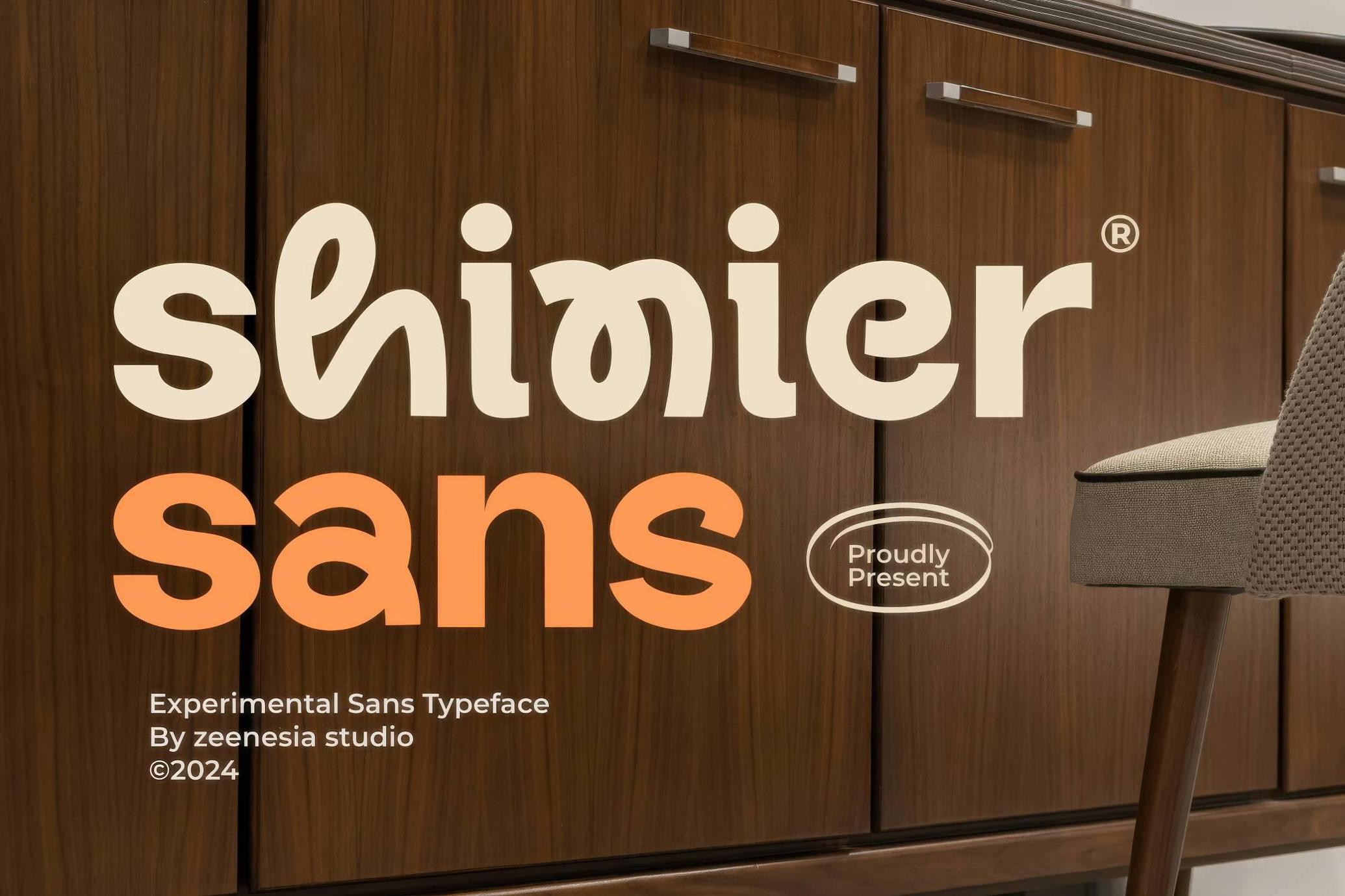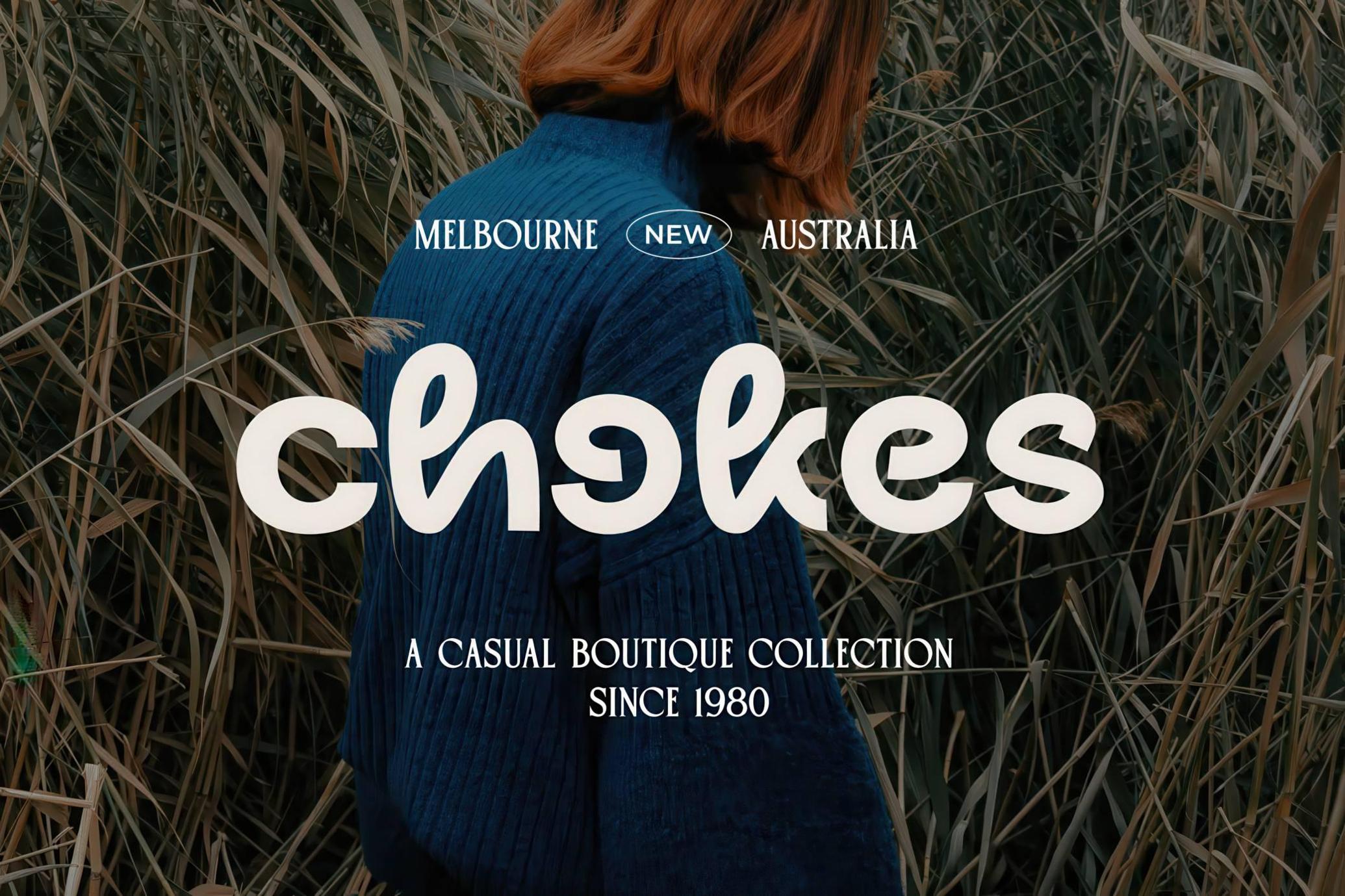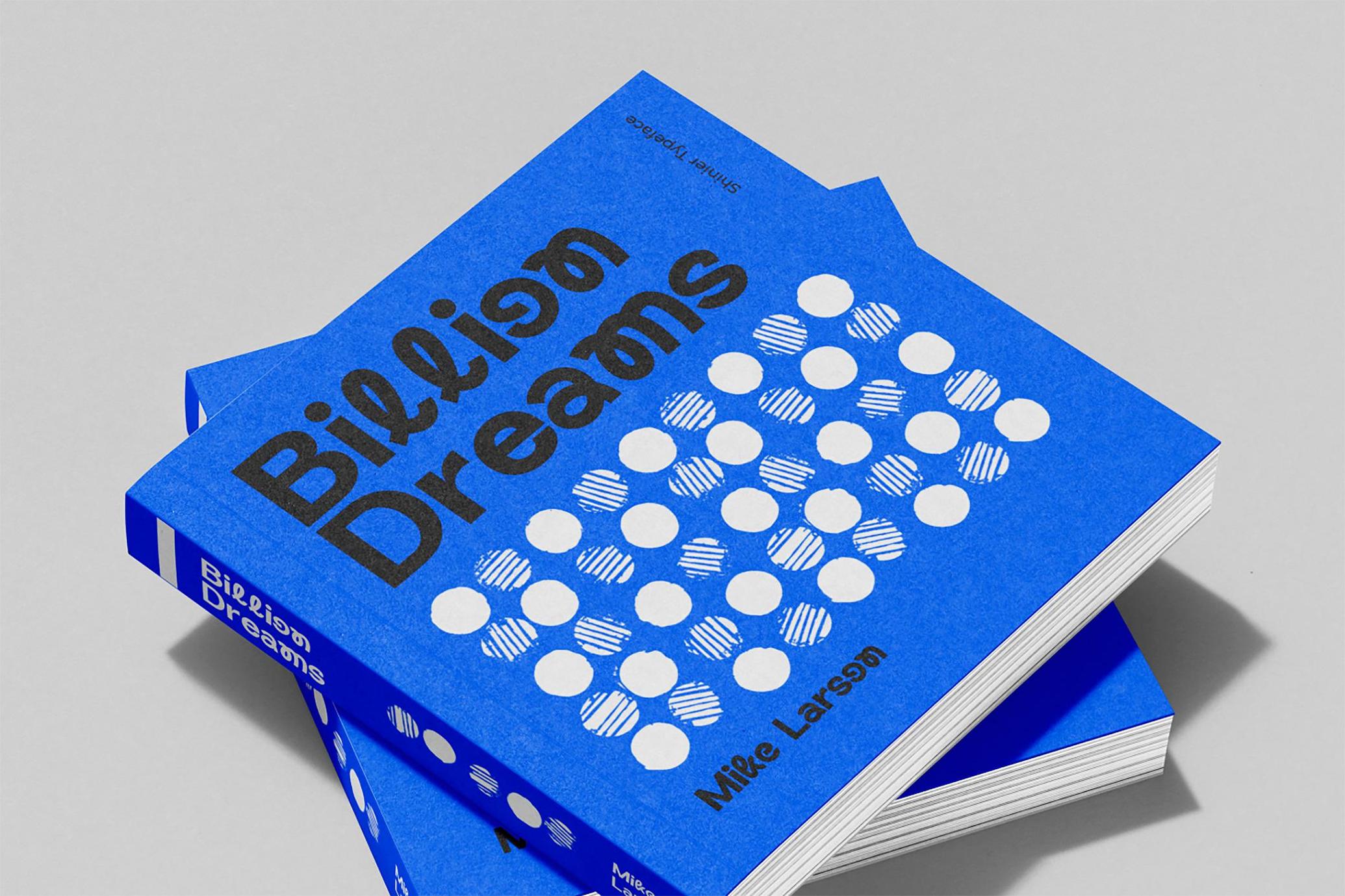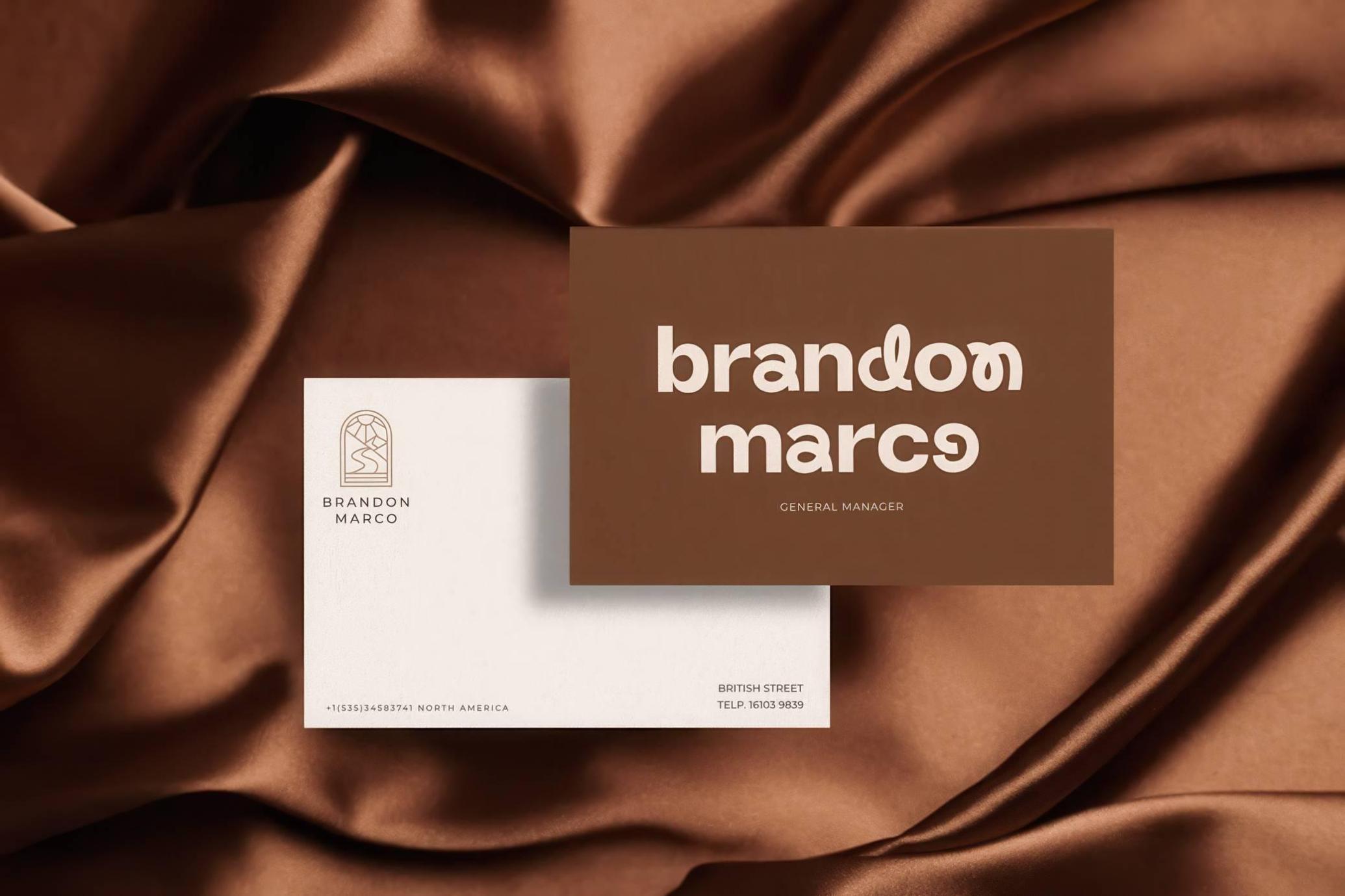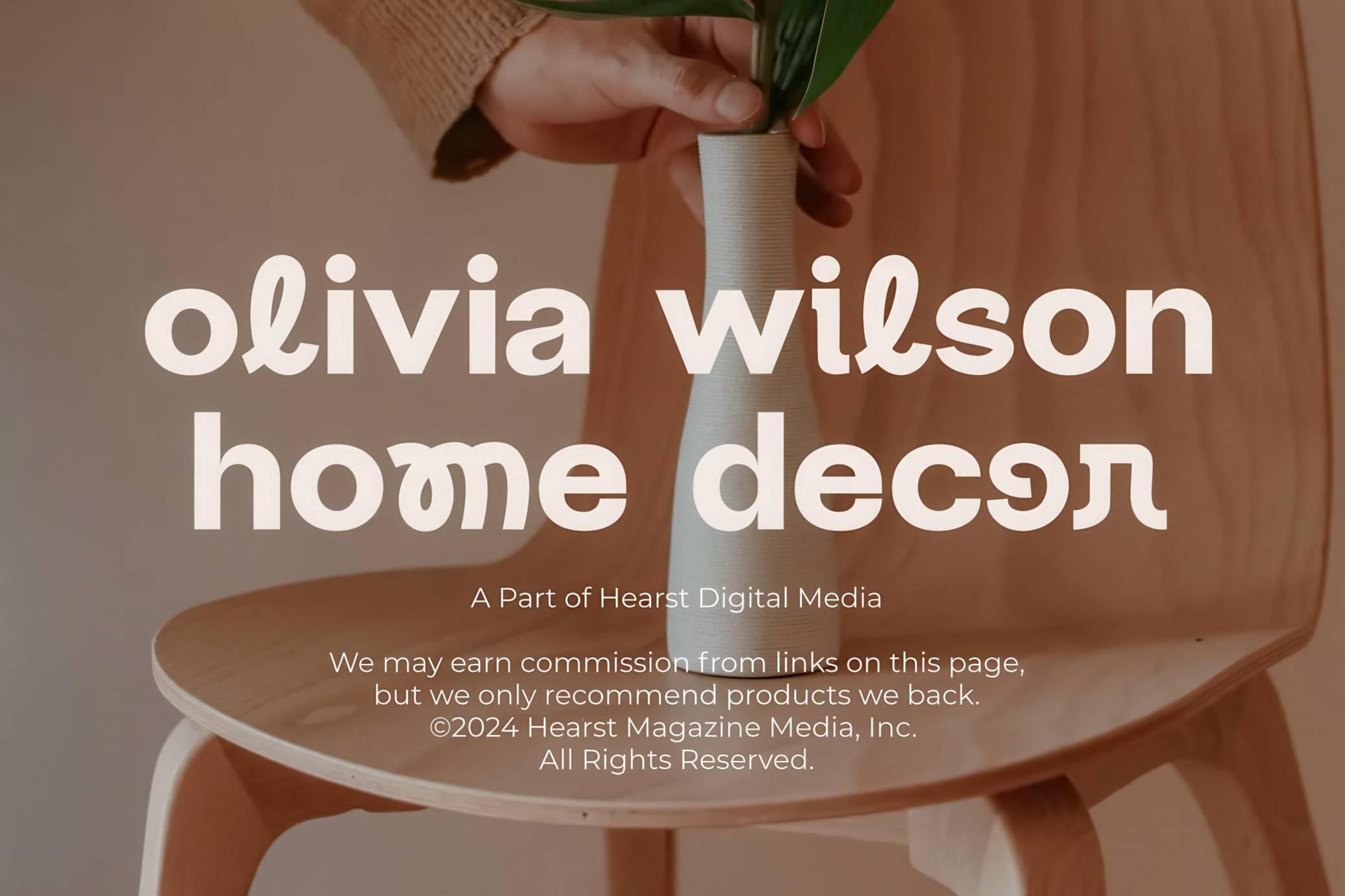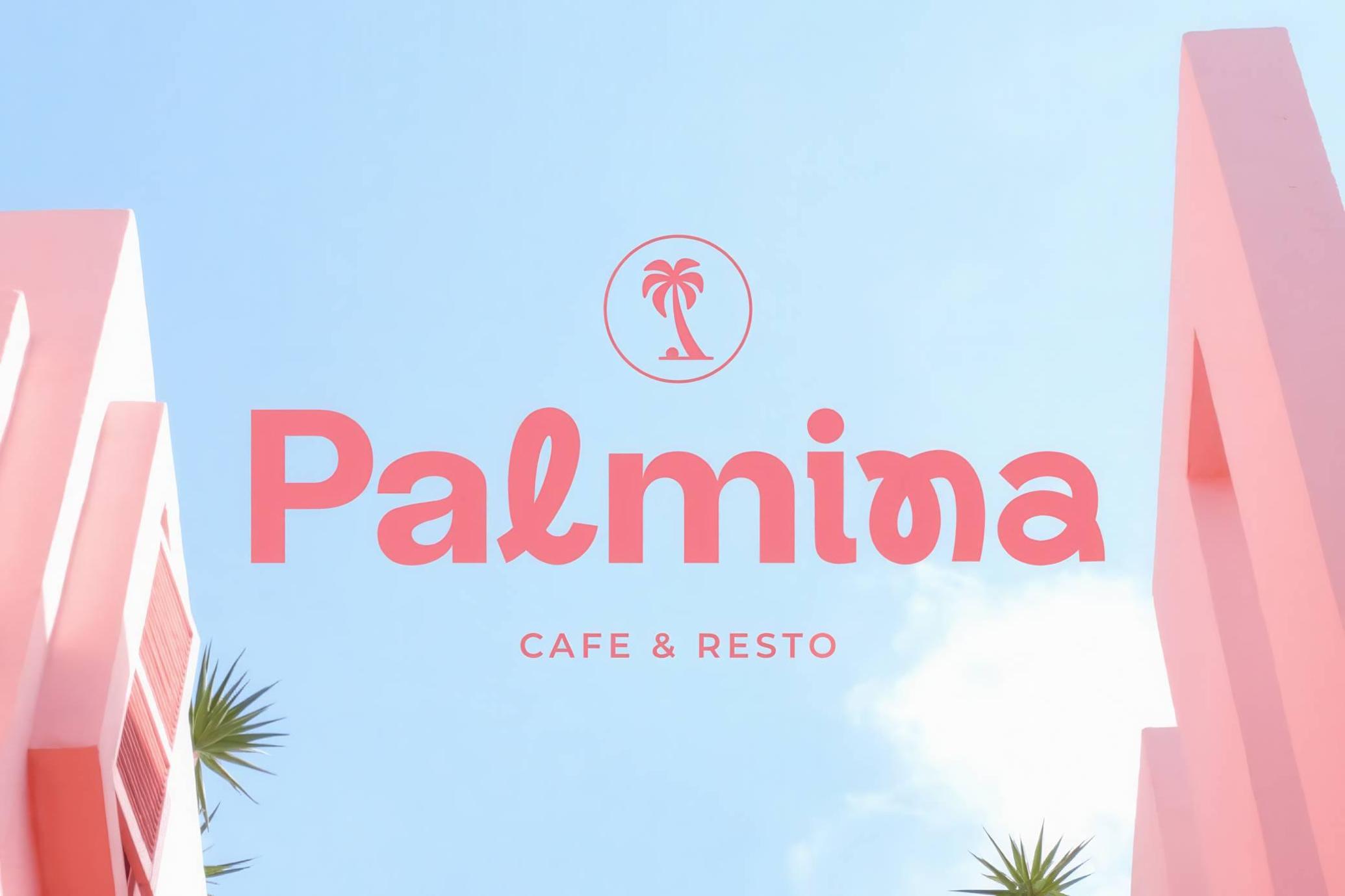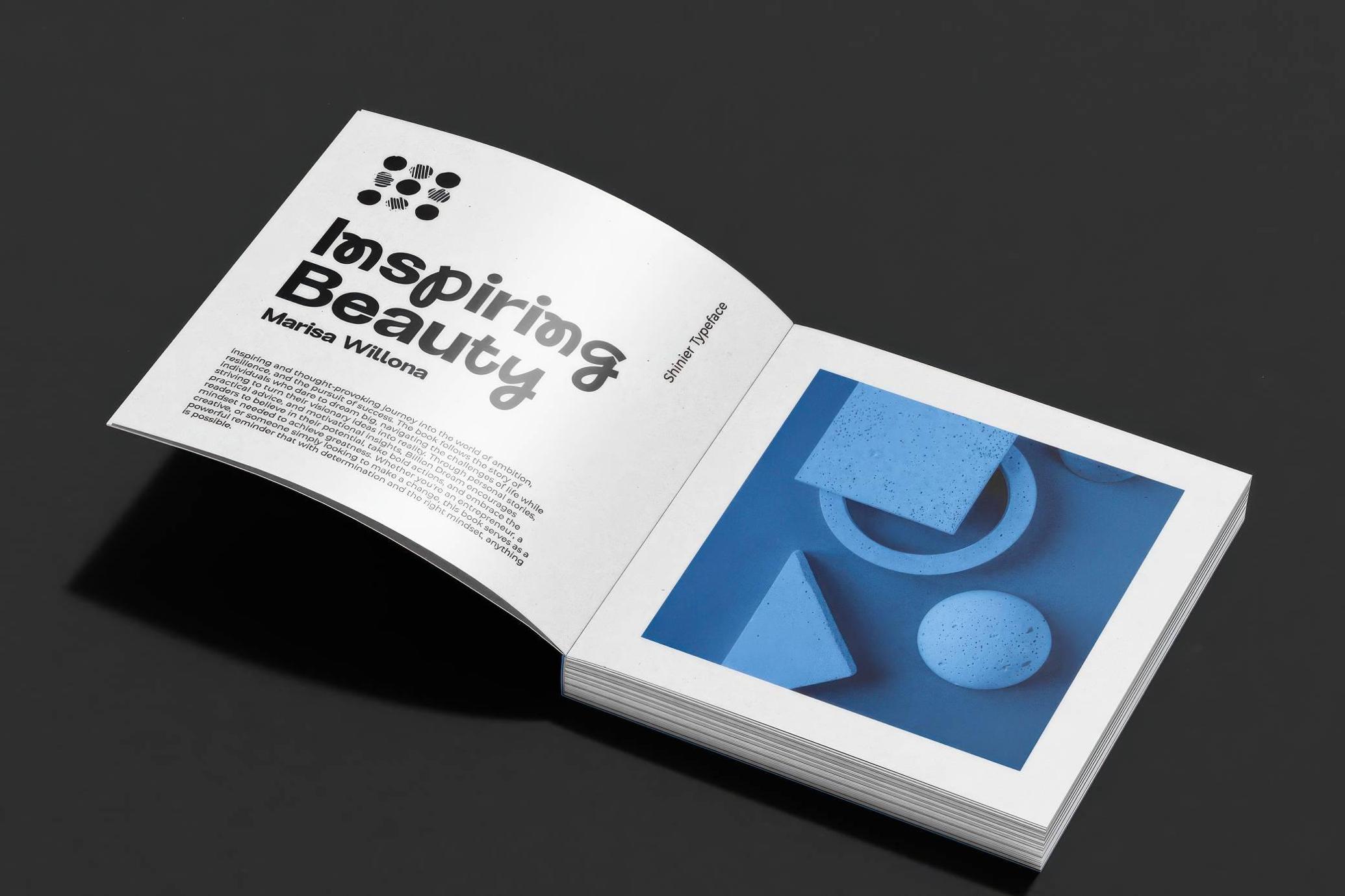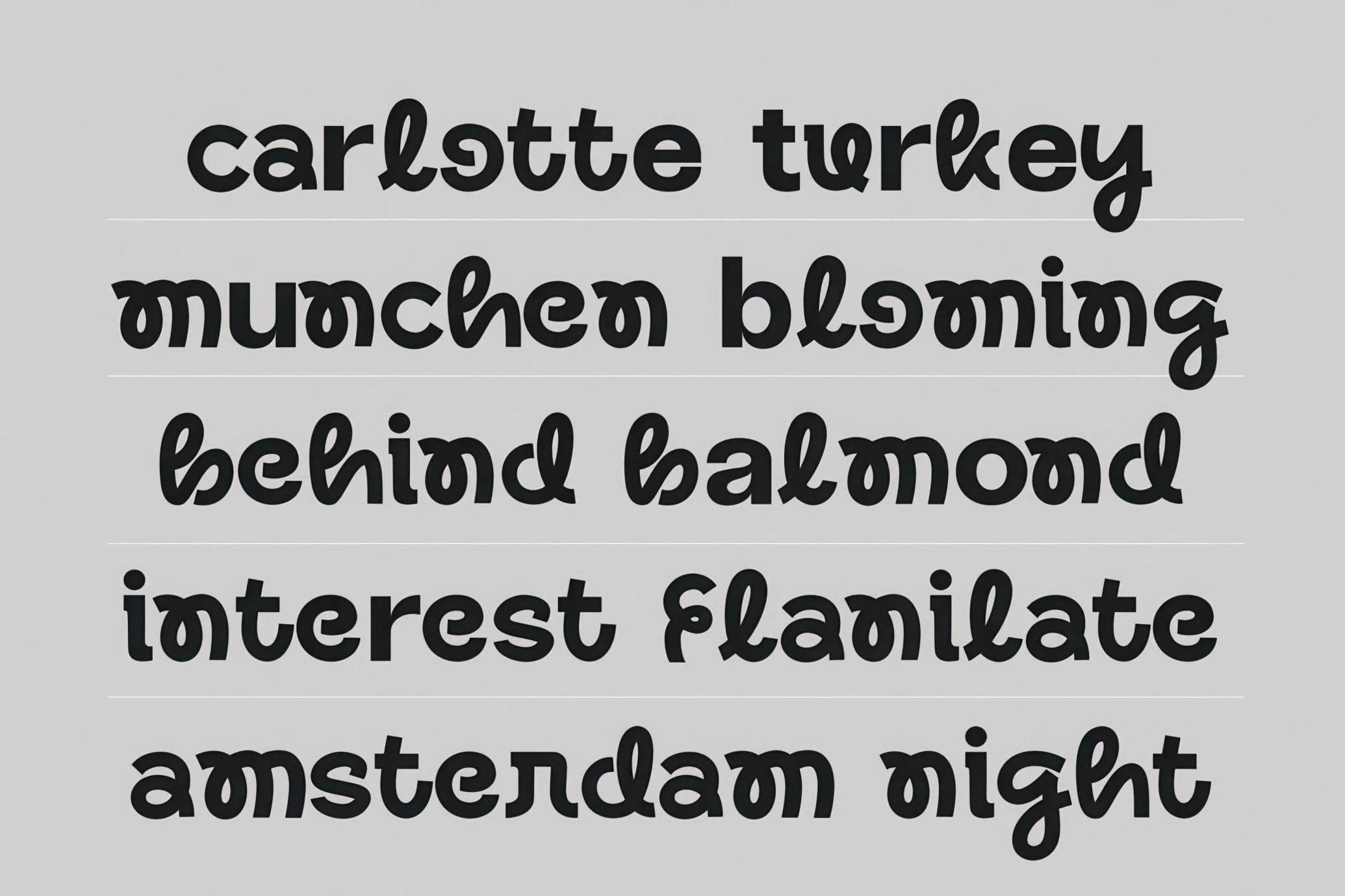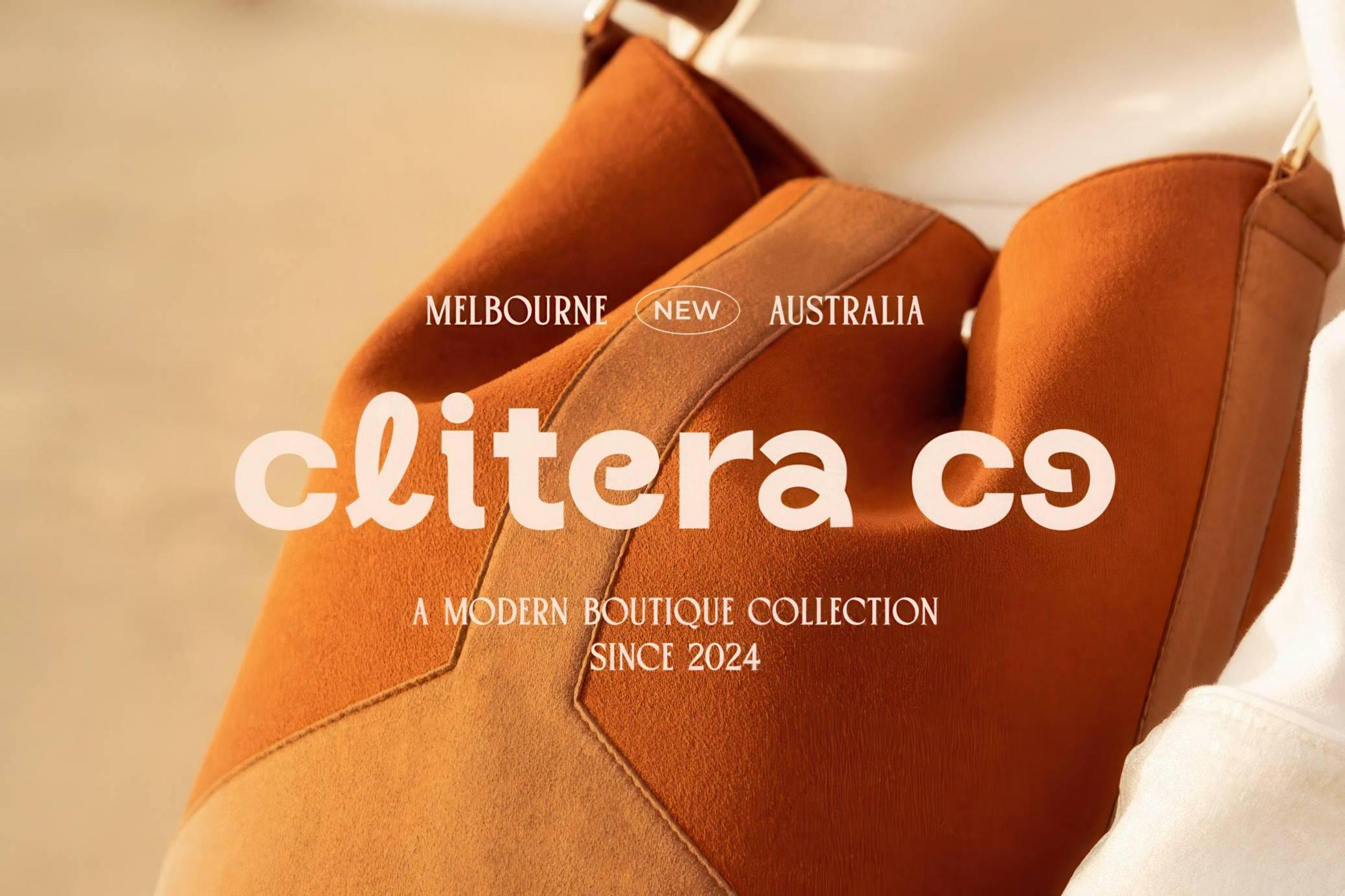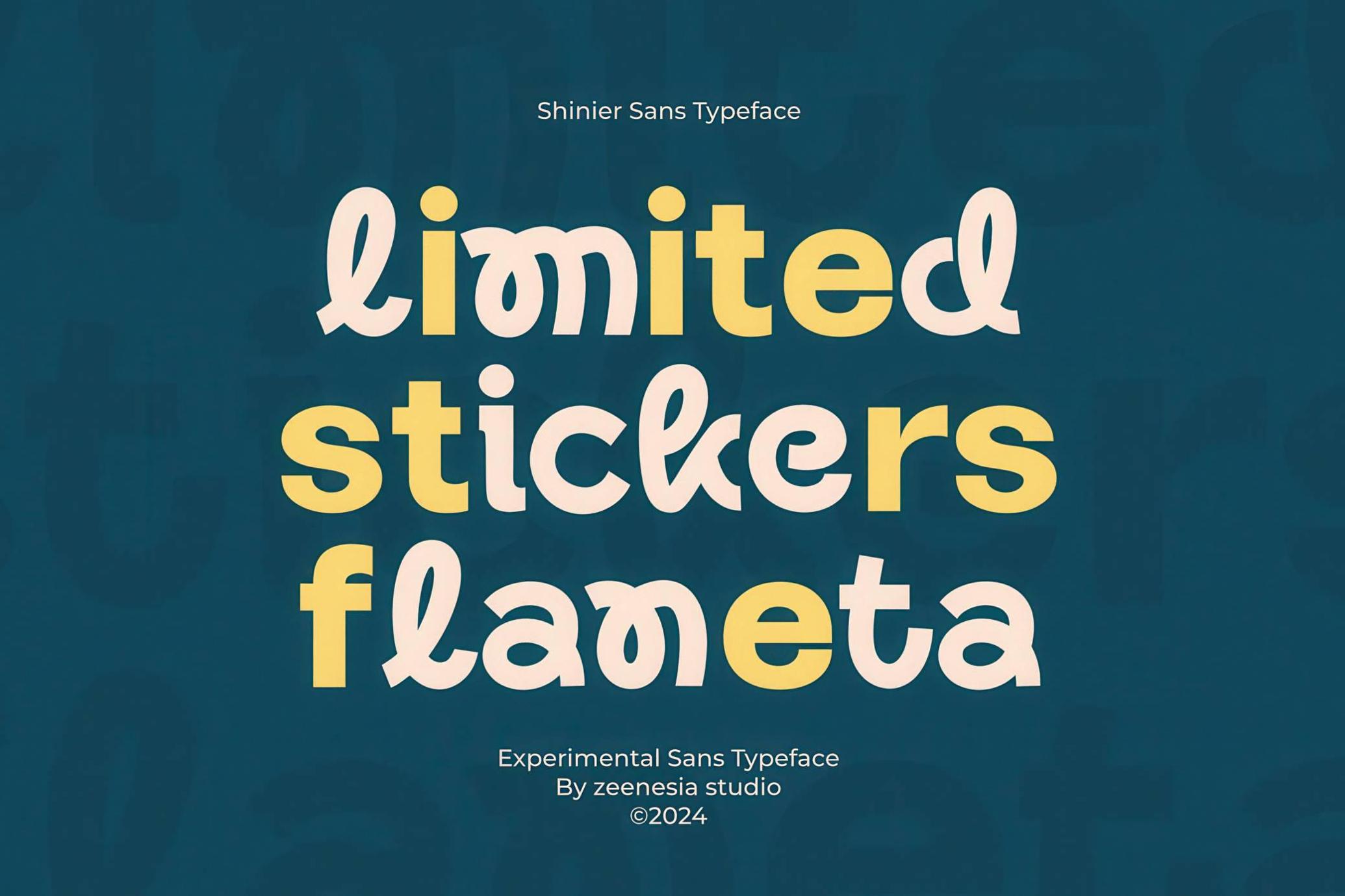
Shinier Sans Serif Font
Shinier embraces chaos and clarity. Its (alternate) letterforms bend and twist in unexpected places, introducing playful curves inside a clean, geometric structure. This twist makes it ideal for branding, packaging, editorial spreads, lifestyle blogs, album covers, and social graphics. The set of glyphs includes standard upper and lowercase, numbers, punctuation, multilingual support, and a full set of alternate characters with expressive detailing. Provided in OTF, TTF, and WOFF formats for desktop and web use.